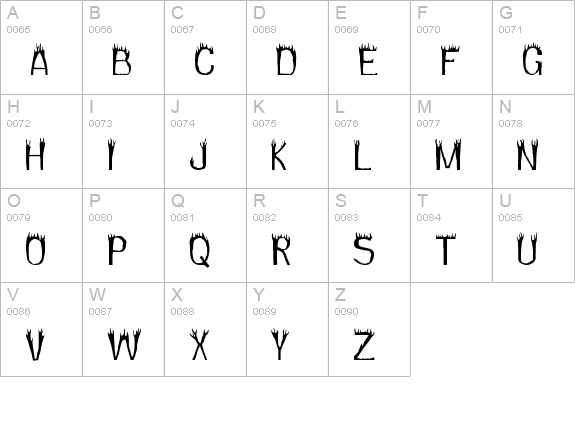
Introducing Hothead font - a bold and dynamic typeface that exudes energy and passion. With its strong, exaggerated lines and fiery design, Hothead is perfect for making a bold statement in your designs. This versatile font is ideal for a variety of projects, from eye-catching headlines to impactful branding. What's even better is that Hothead font is available for free download at FontsMarket.com! Now you can add this striking font to your collection without any cost. Don't miss out on the opportunity to elevate your designs with the powerful presence of Hothead font. Download it today and let your creativity burn bright!